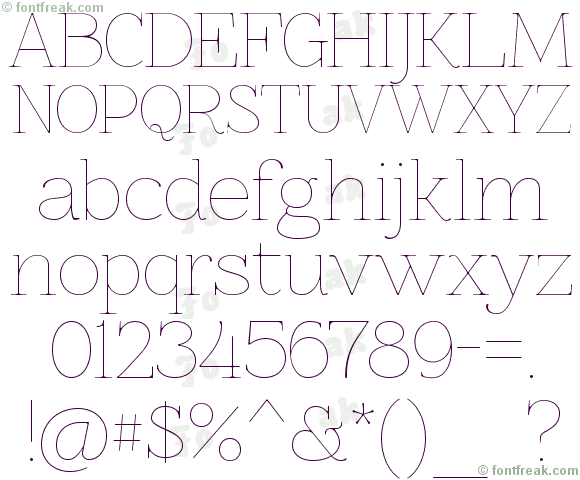
Znikomit
About Znikomit
Znikomit is a striking display font created by Grzegorz L. that embodies a unique blend of elegance and modernity. This font falls into the category of serif typefaces, showcasing a sophisticated design with distinctive features that make it stand out. The stroke weight is balanced, providing an appealing contrast that enhances readability while retaining a stylish flair. The spacing between letters is well-considered, ensuring clarity and legibility in various applications. Znikomit also incorporates subtle decorative elements that add character without overwhelming the design, making it versatile for numerous creative projects.
This font is particularly well-suited for high-impact use cases such as wedding invitations, where its elegance can elevate the overall aesthetic. It also shines in movie posters, allowing titles to command attention while conveying a sense of drama and sophistication. Additionally, Znikomit is ideal for restaurant menus, where it can create an inviting atmosphere that enhances the dining experience. Content creators and graphic designers will find it an excellent choice for branding materials, giving logos and promotional graphics a touch of refinement.
Targeting graphic designers, small business owners, and content creators, Znikomit appeals to those seeking a distinctive font that adds personality to their work. The combination of its stylish design and practical usability makes it a valuable addition to any designer's toolkit.